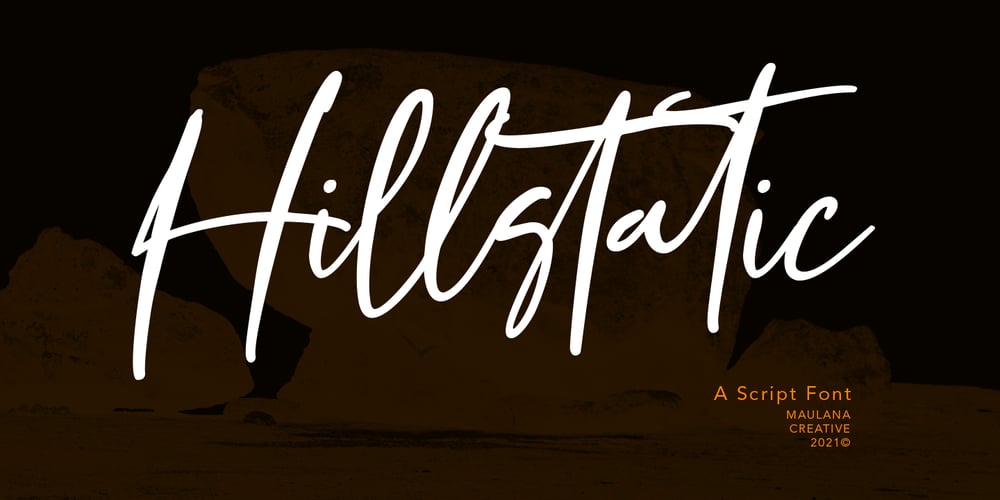
Hillstatic
Hillstatic font
Hillstatic Font Family was designed by Gilang Maulana and published by Maulana Creative. Hillstatic contains 1 styles and family package options. Hillstatic is a casual script display font, with a clean stroke, slanted and fun character. It has Opentype features ligatures of character, To give you an extra creative work. Hillstatic script font support multilingual more than 100+ language. This font is good for logo design, Social media, Movie Titles, Books Titles, a short text even a long text letter and good for your secondary text font with sans or serif. Make a stunning work with Hillstatic font. Cheers, MaulanaCreative